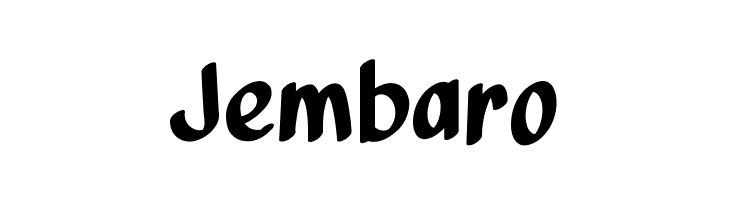
A casual, handwritten font with a playful and informal style.
Expressive handwritten script font.
A playful, bold font with dynamic, hand-drawn letterforms.
A bold, playful font with a dynamic and energetic style.
A bold, italic font with a dynamic and modern style.
A bold, playful font with jazzy curves and expressive strokes.
A bold, italicized font with a flowing, cursive-like design.
A lively, cursive font with an italic slant, perfect for artistic projects.
A playful, dynamic font with a handwritten flair and cursive-like strokes.